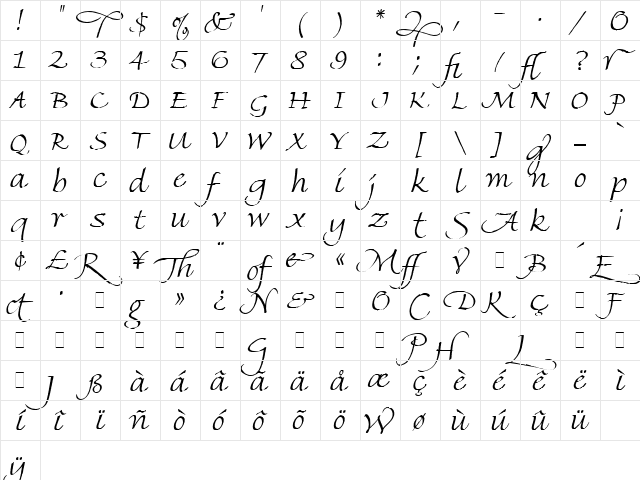
Fine Hand LET Plain
Design Context for Fine Hand LET Typeface
Fine Hand LET brings a calligraphic fluidity to the page — its connecting strokes and expressive curves give it an unmistakably human quality.
Font Pairing: Combine Fine Hand LET with a simple geometric sans for maximum contrast — the tension between flowing curves and clean structure is a classic typographic pairing.
Pro Tip: Pair Fine Hand LET with a clean sans-serif for supporting text. The contrast between fluid script and geometric structure creates an elegant typographic hierarchy.